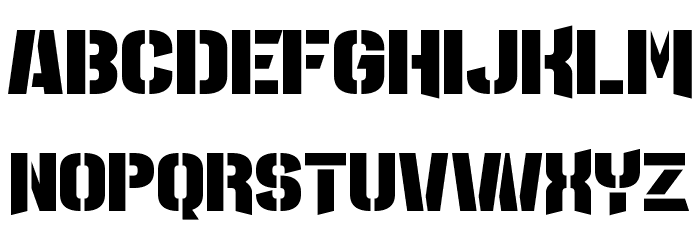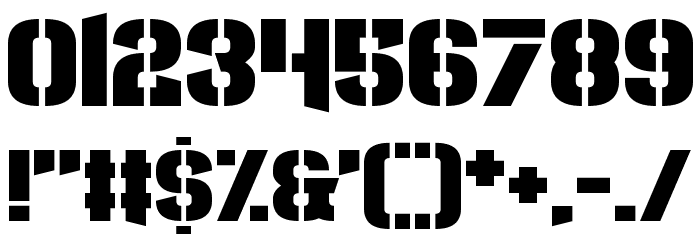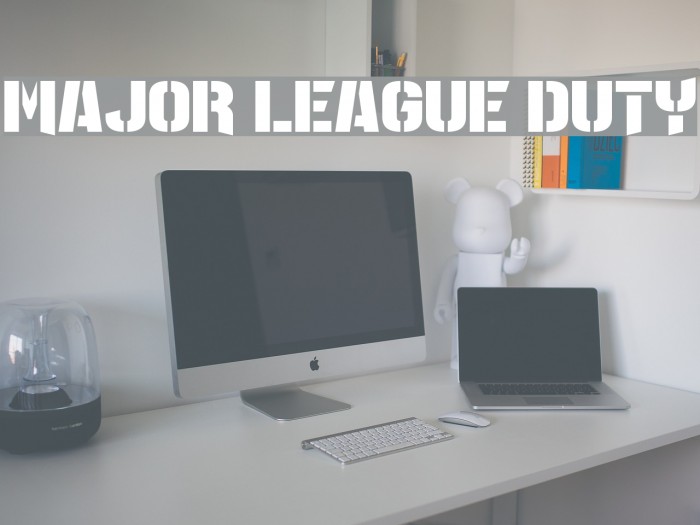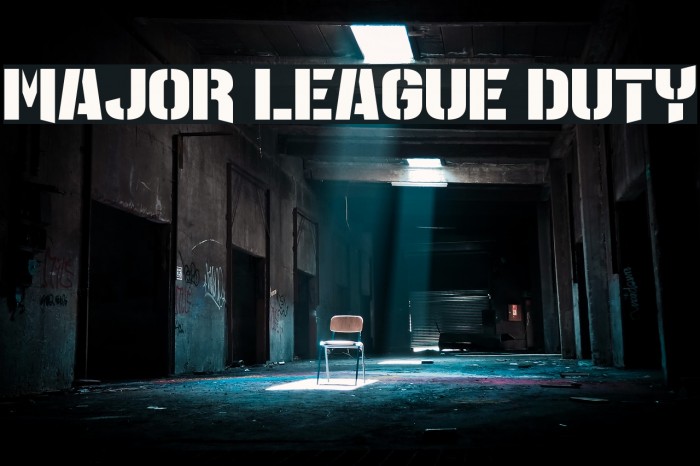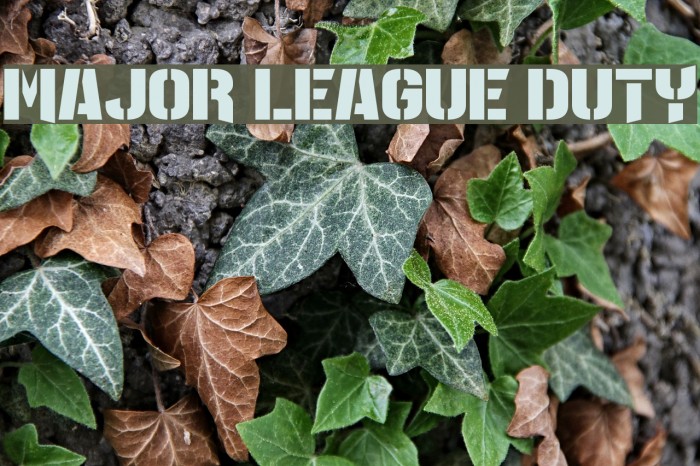
Major League Duty Font
This font features a bold, impactful design with a stencil-like appearance. The characters are constructed with thick, solid strokes and distinct cut-out sections, giving it a rugged, industrial feel. The uppercase letters are uniform in height, while the numbers and special characters maintain the same boldness and style, ensuring consistency across all glyphs. The font's geometric shapes and sharp angles contribute to its strong visual presence, making it ideal for attention-grabbing designs. Its unique style is reminiscent of military or sports themes, providing a sense of strength and authority.
A bold, stencil-style font with a strong, industrial look.
- Proposed Projects: Ideal for sports team branding, military-themed posters, or industrial design projects.
- Overall Style: Industrial, Bold, Stencil